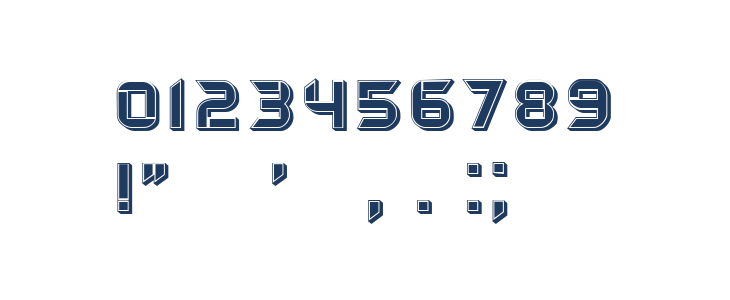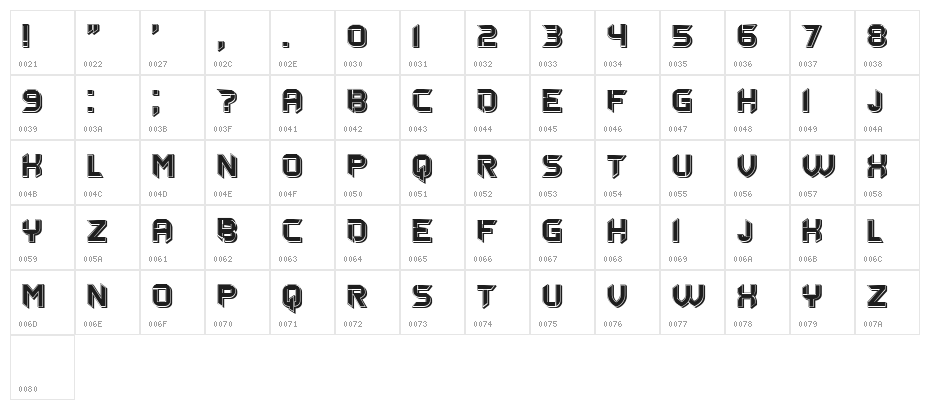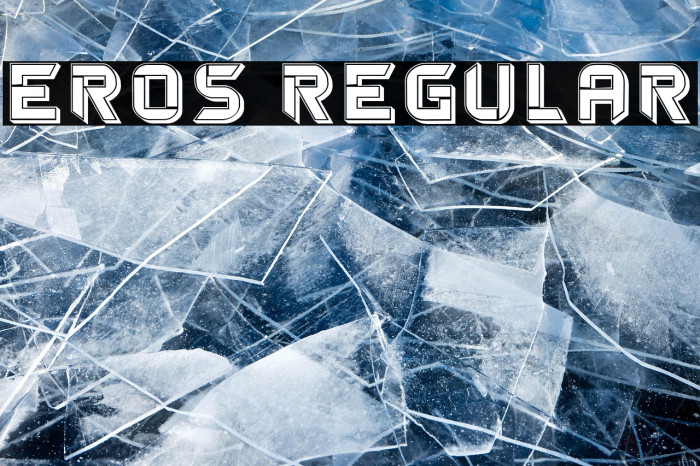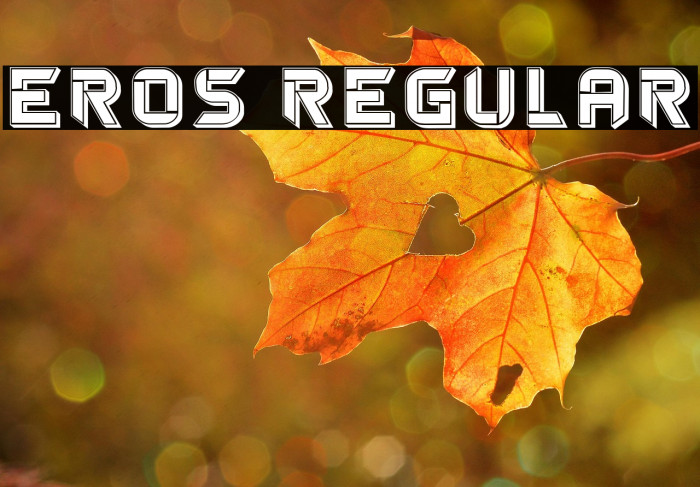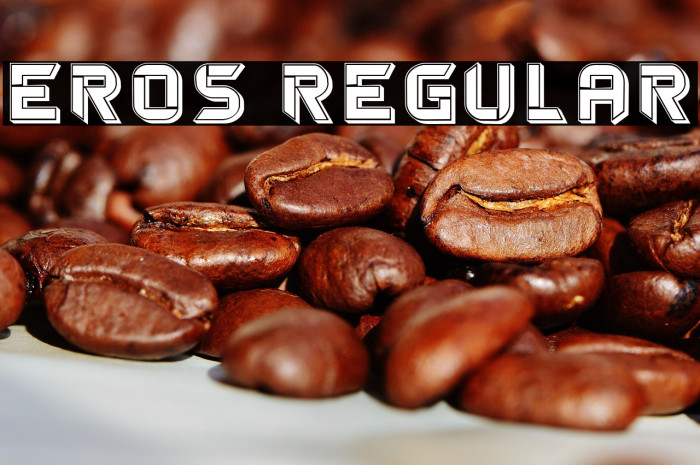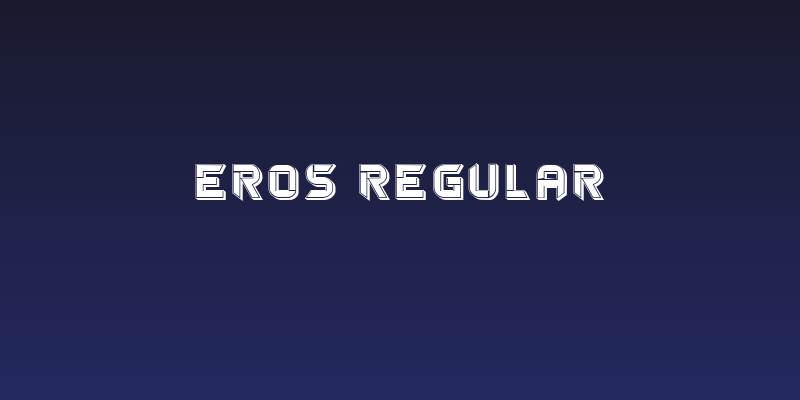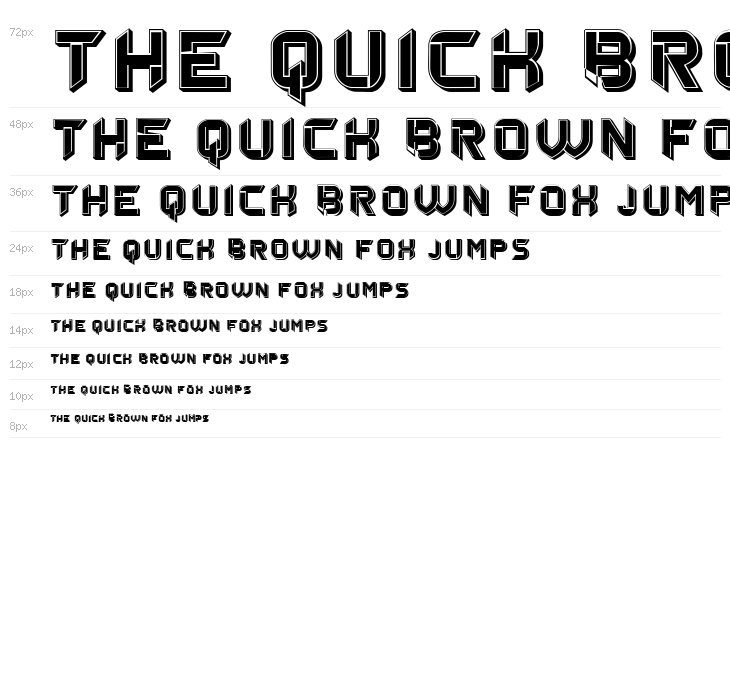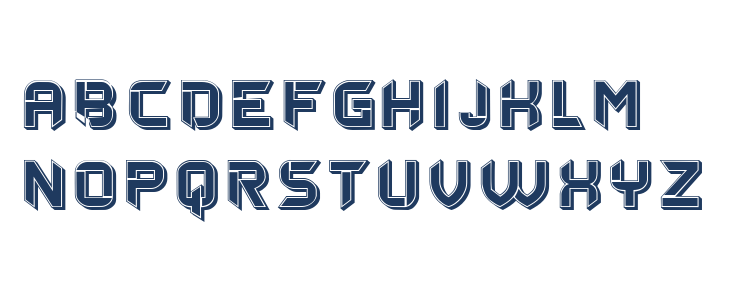
Eros Regular Font
Eros Regular Description
This font features a bold, geometric design with a distinct three-dimensional effect. The characters are constructed with sharp angles and clean lines, giving it a futuristic and dynamic appearance. The use of shadowing adds depth, making each letter stand out prominently. The uppercase and lowercase letters maintain a consistent style, with the numbers and special characters following suit. The overall look is modern and eye-catching, suitable for projects that require a strong visual impact.
| Proposed Projects | Ideal for branding, posters, video game titles, and any project needing a futuristic or tech-inspired look. |